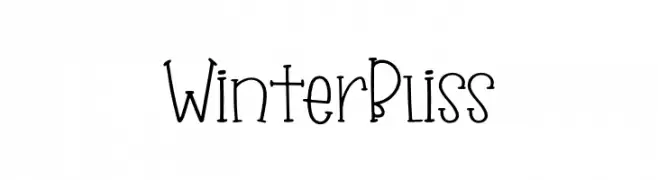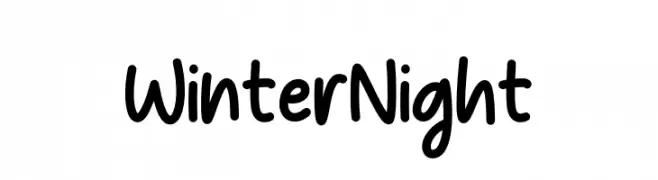
A bold, expressive handwritten font with brush-like strokes.
A bold, flowing script font with a dynamic and elegant style.
A bold, brush-style font with dynamic and expressive strokes.
A playful, bold handwritten font with a whimsical and informal style.
A lively, cursive font with a handwritten style and elegant flow.
A playful, handwritten font with a modern and whimsical style.
A playful, bold font with rounded, hand-drawn letterforms.
A playful, bold, and whimsical handwritten font with dynamic strokes.
A bold, playful script font with a handwritten feel.
A tall, slender, and elegant font with a whimsical touch.
A playful, bold, and hand-drawn font with rounded characters.
A lively handwritten font with fluid strokes and a playful style.
A playful, bold handwritten font with a casual and friendly vibe.
A bold, festive font with snowflake accents, perfect for winter themes.
A whimsical script font with snow-capped letters, perfect for winter themes.
A bold, playful font with snowy caps on each character, perfect for winter themes.
A playful, hand-drawn font with rounded edges and a friendly style.
A playful, bold, handwritten-style font with a friendly and whimsical appearance.
A sleek, modern font with tall, narrow letters and medium contrast.
A bold, playful font with icy, snow-covered characters for a winter-themed design.
A lively script font with fluid, interconnected strokes and a handwritten appearance.
A lively and flowing script font with elegant, cursive letterforms.
An elegant, flowing script font with graceful curves and delicate strokes.
An elegant script font with intricate swirls and high contrast, perfect for decorative use.
A bold, playful script font with a modern, hand-drawn feel.
A flowing, cursive font with elegant and playful characteristics.
A tall, narrow, hand-drawn font with a casual and stylish appearance.
A bold, playful font with a three-dimensional shadow effect.
A playful and elegant handwritten script font with medium contrast.
A whimsical, flowing handwritten font with elegant strokes.
A bold, fragmented font with geometric shapes and dynamic style.
An elegant and flowing script font with charming cursive details.
An elegant, cursive font with a fluid, handwritten style.
A playful and elegant handwritten script font with bold, whimsical flourishes.